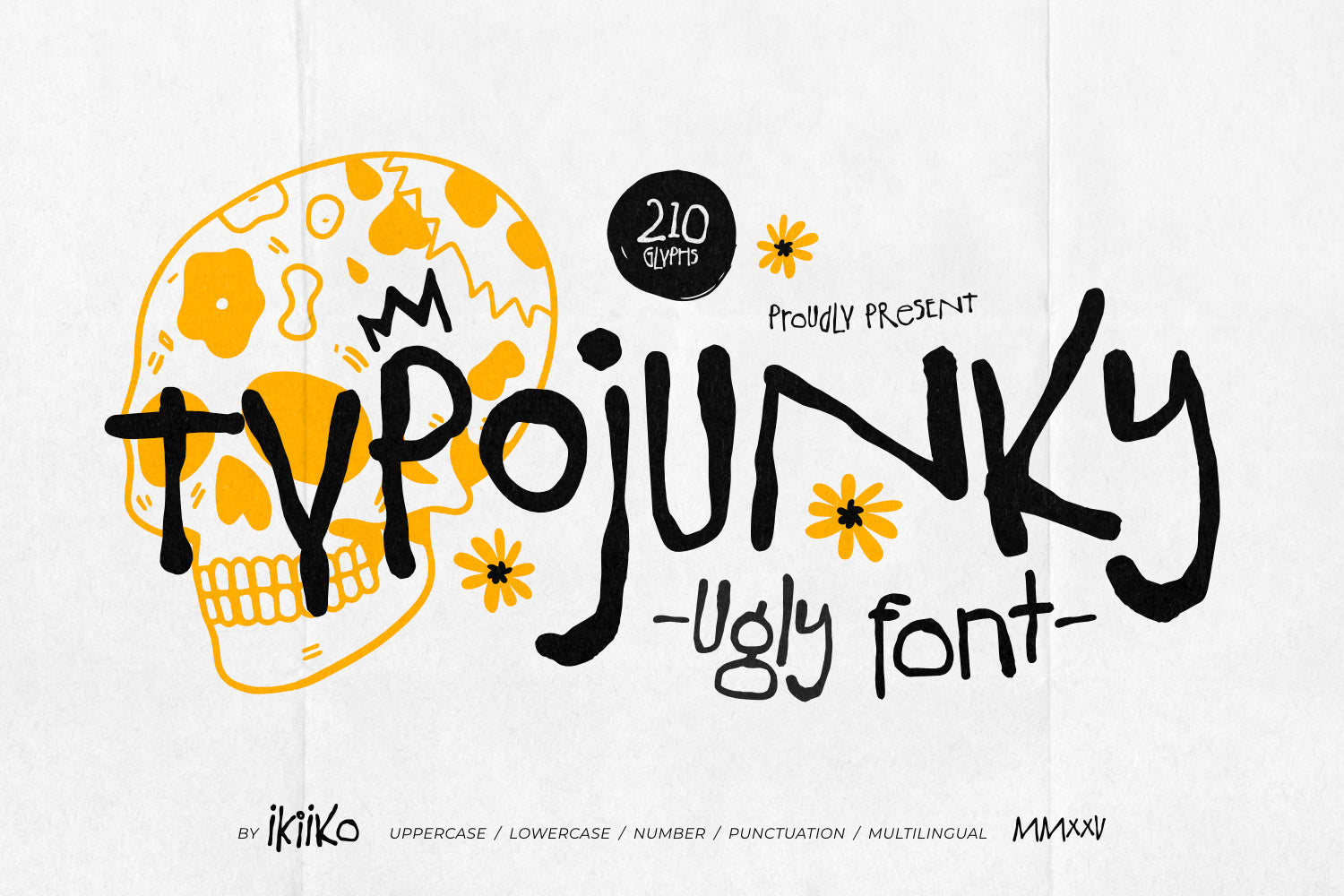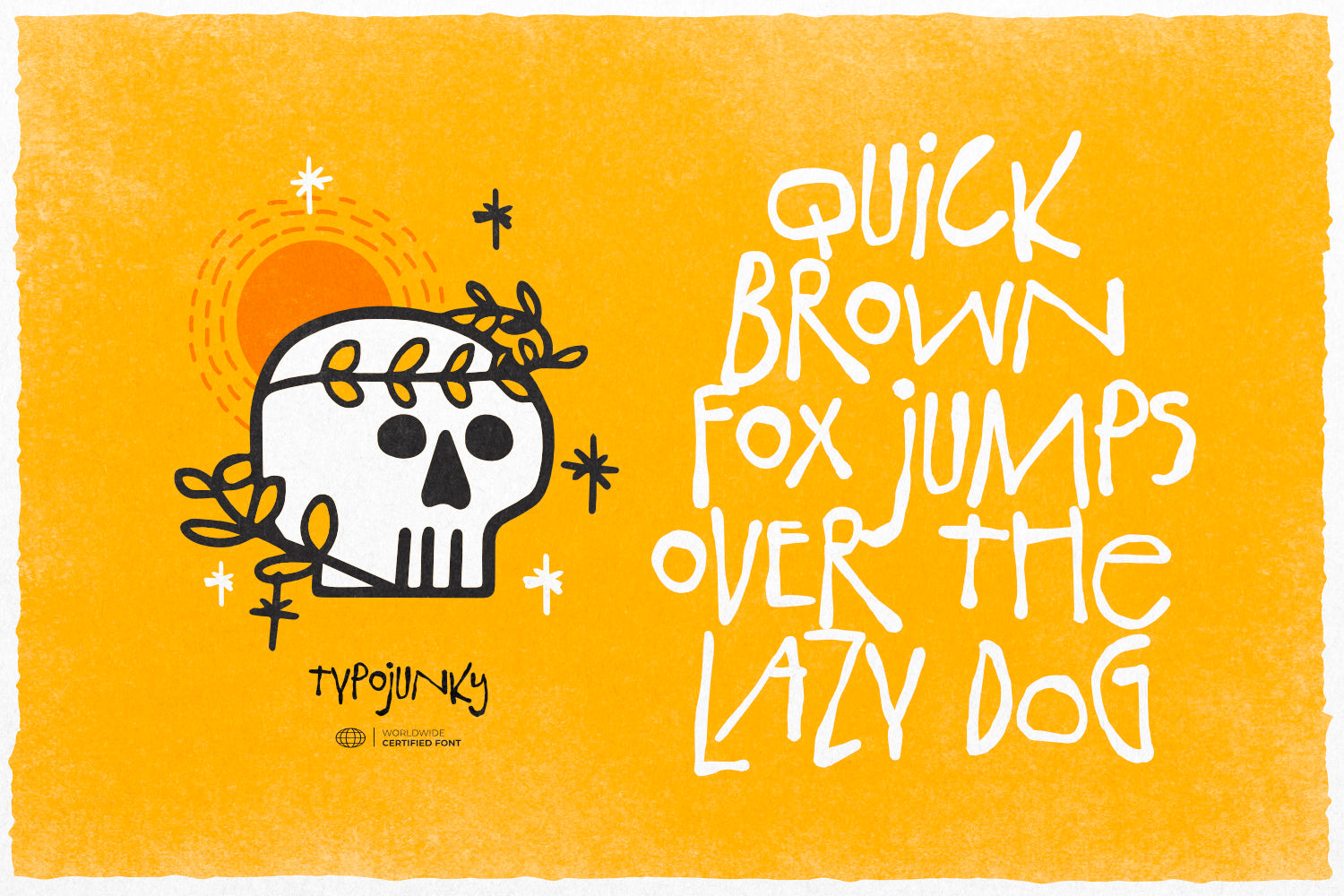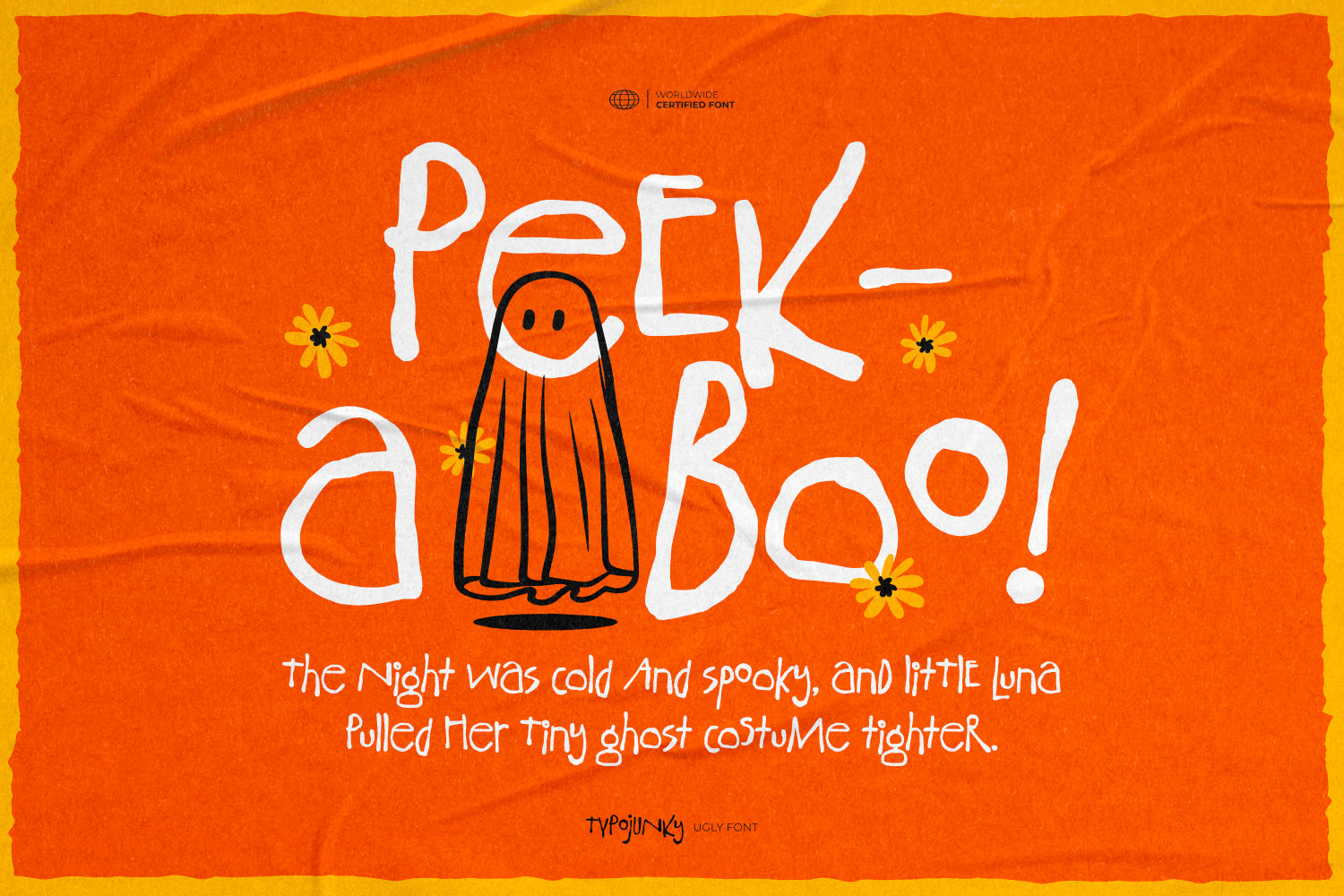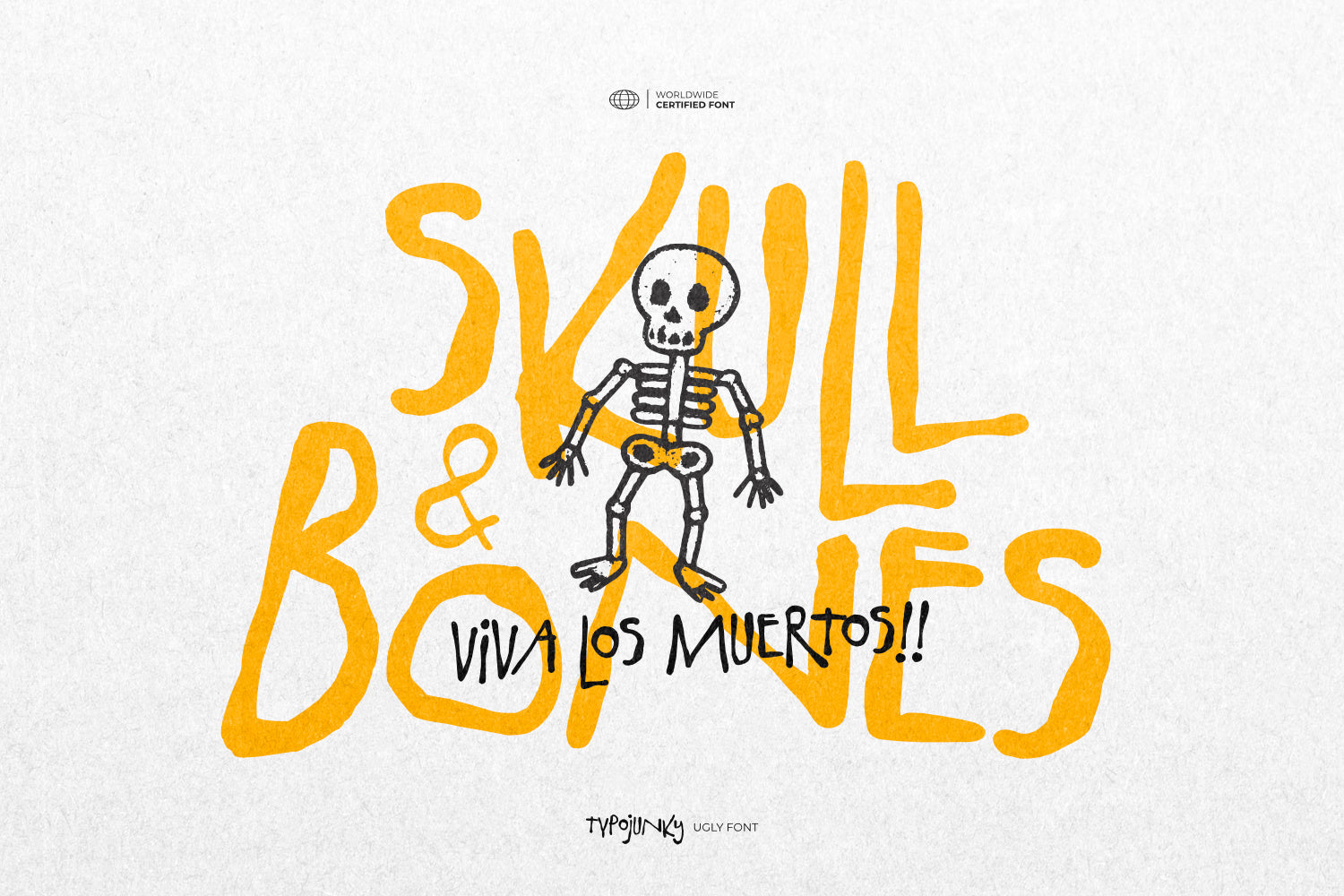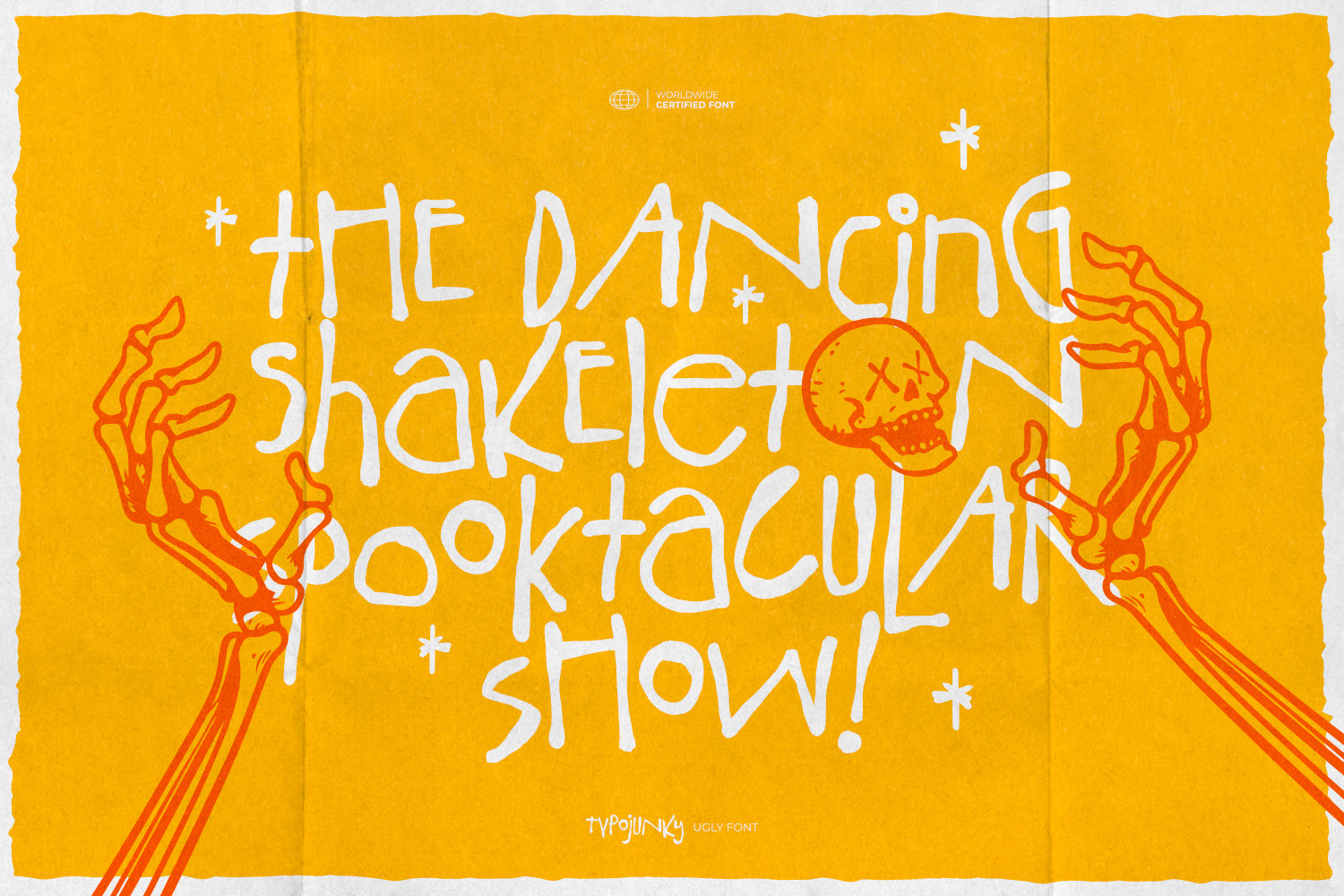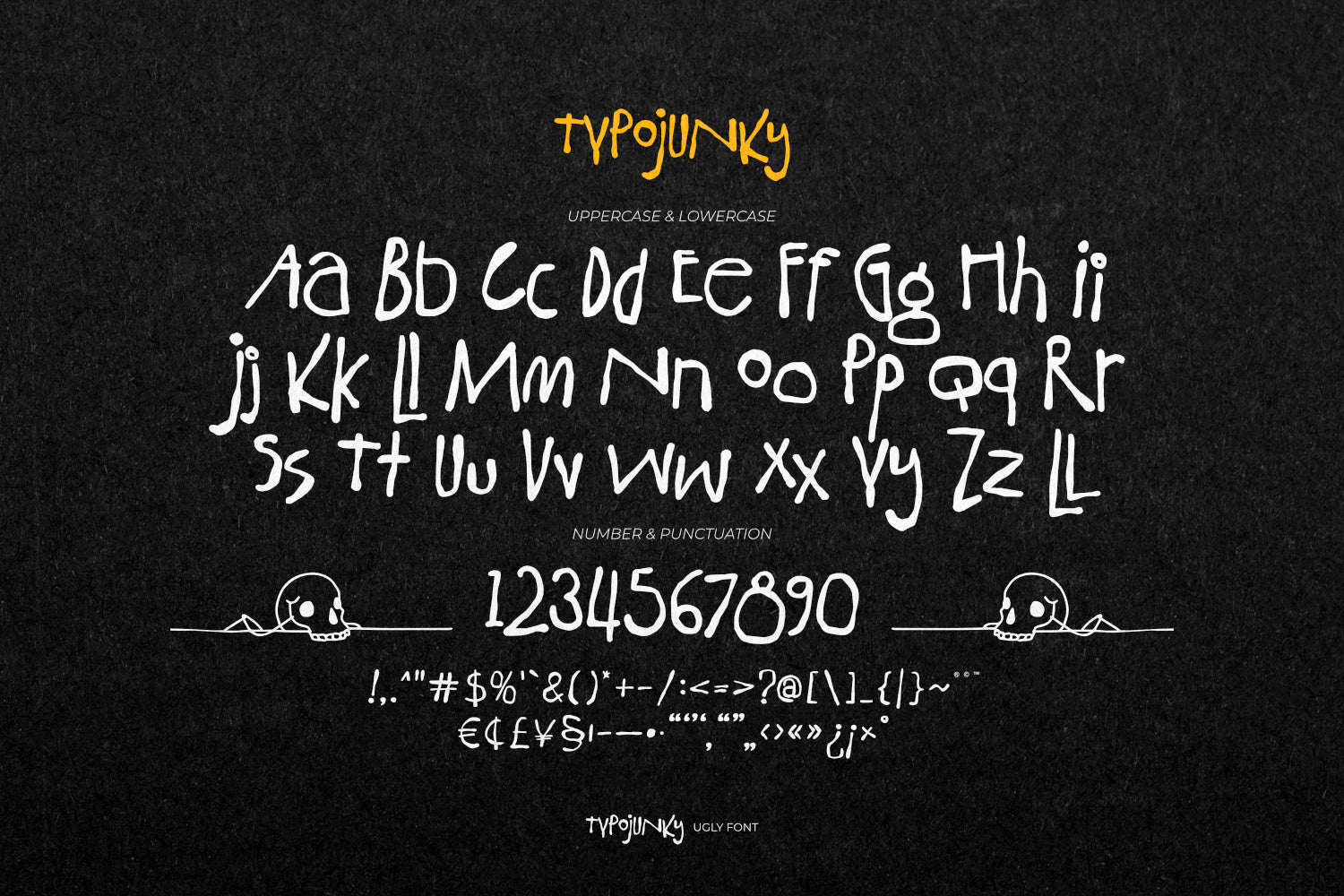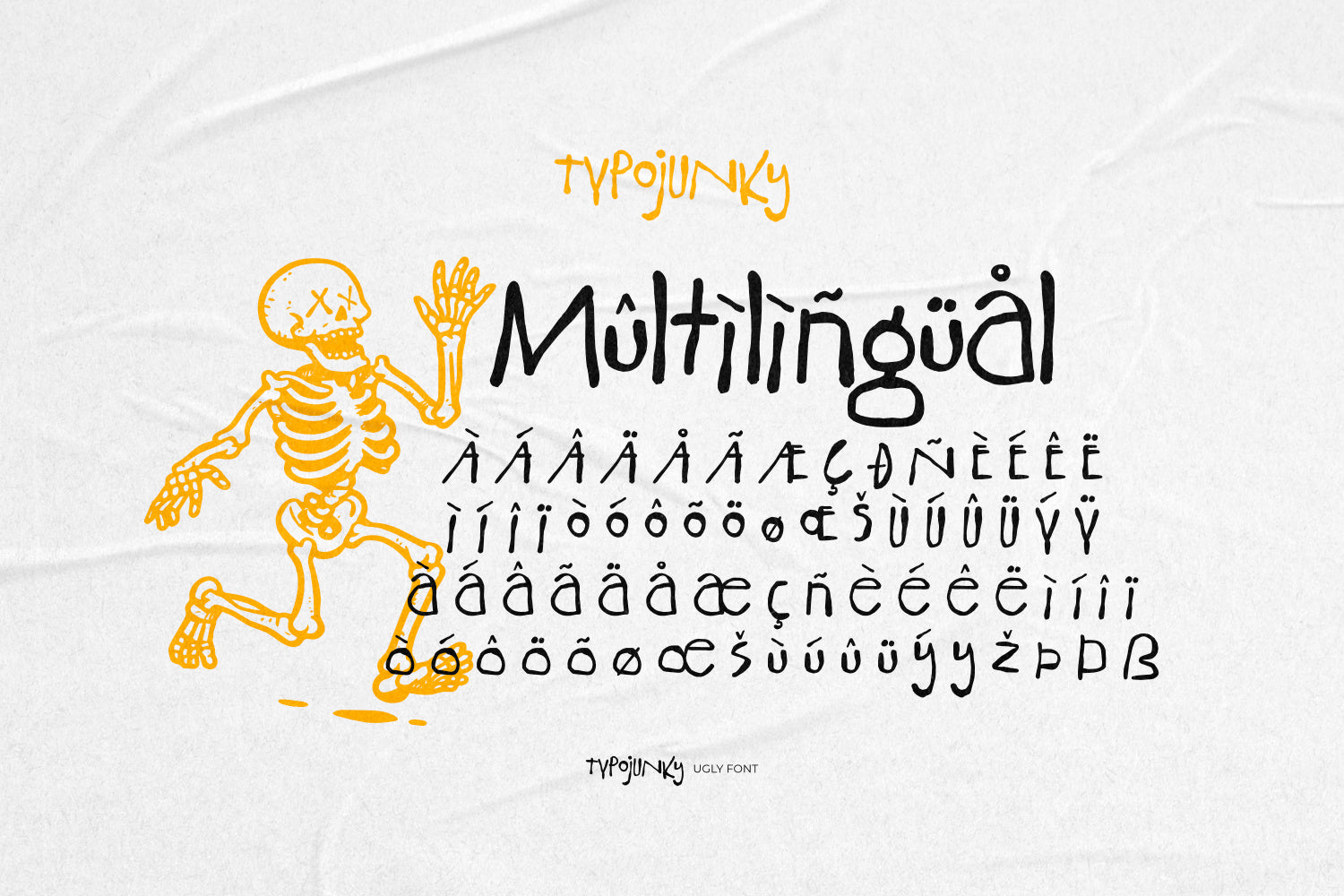
Proudly Present Typojunky - Ugly Font, created by ikiiko
Meet Typojunky, the unapologetically ugly font that turns imperfection into personality. This isn’t your clean-cut, cookie-cutter typeface — it’s raw, organic, and handmade to the core. Each letter looks like it crawled straight out of a noisy sketchbook, buzzing with doodle energy and gritty noir attitude.
Built for rebels, creatives, and designers who crave something real, Typojunky embraces the natural flaws that make type human. It's perfect for zines, experimental posters, editorial layouts, and anything that needs to shout without being polished. Think analog chaos meets DIY design — the font equivalent of an underground art show!